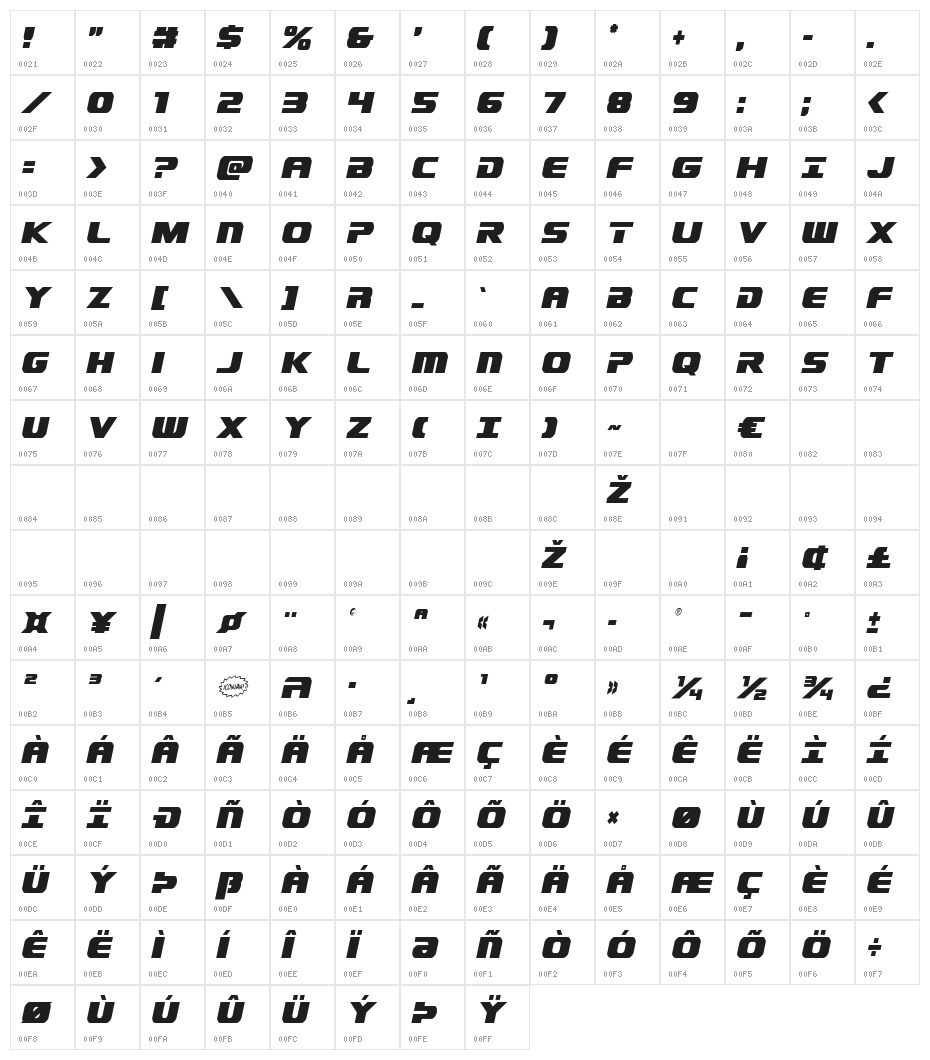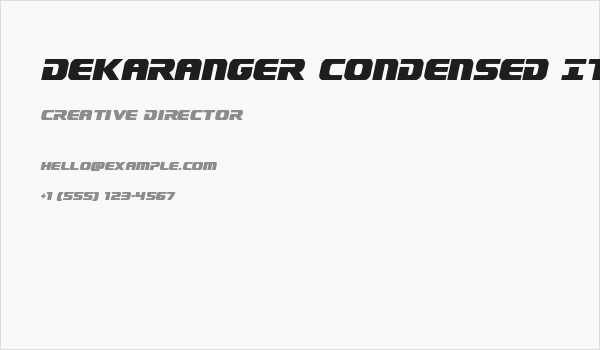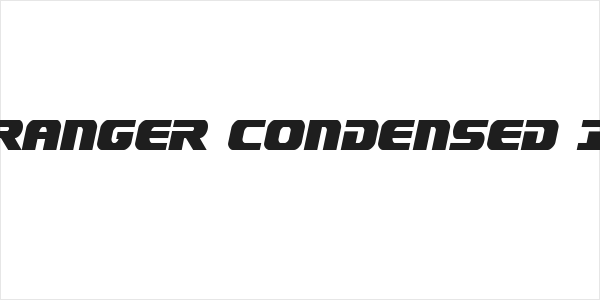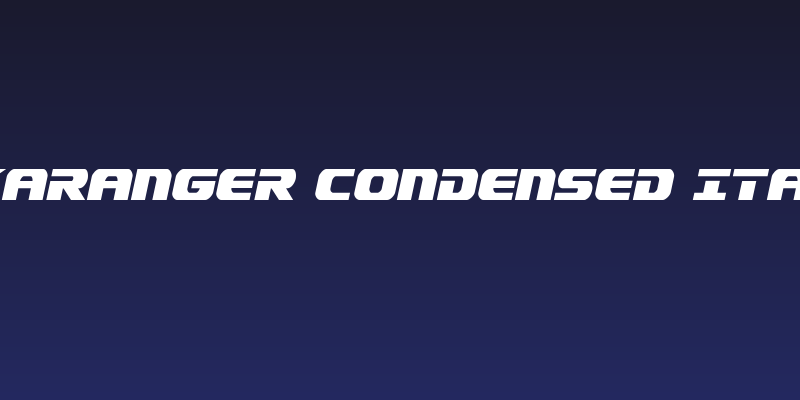
Dekaranger Condensed Italic Font
Dekaranger Condensed Italic Description
This font features a bold and dynamic style with a futuristic flair. The characters are condensed and italicized, giving them a sleek, forward-leaning appearance. The bold weight and angular cuts create a sense of movement and energy, making it ideal for attention-grabbing designs. The uppercase letters are particularly striking, with sharp edges and a consistent slant that enhances the font's modern aesthetic. The numbers and special characters maintain this cohesive style, ensuring versatility across various applications. The overall design is clean yet impactful, suitable for projects that require a strong visual presence.
| Proposed Projects | Ideal for sci-fi themed posters, video game titles, tech branding, and sports team logos. |